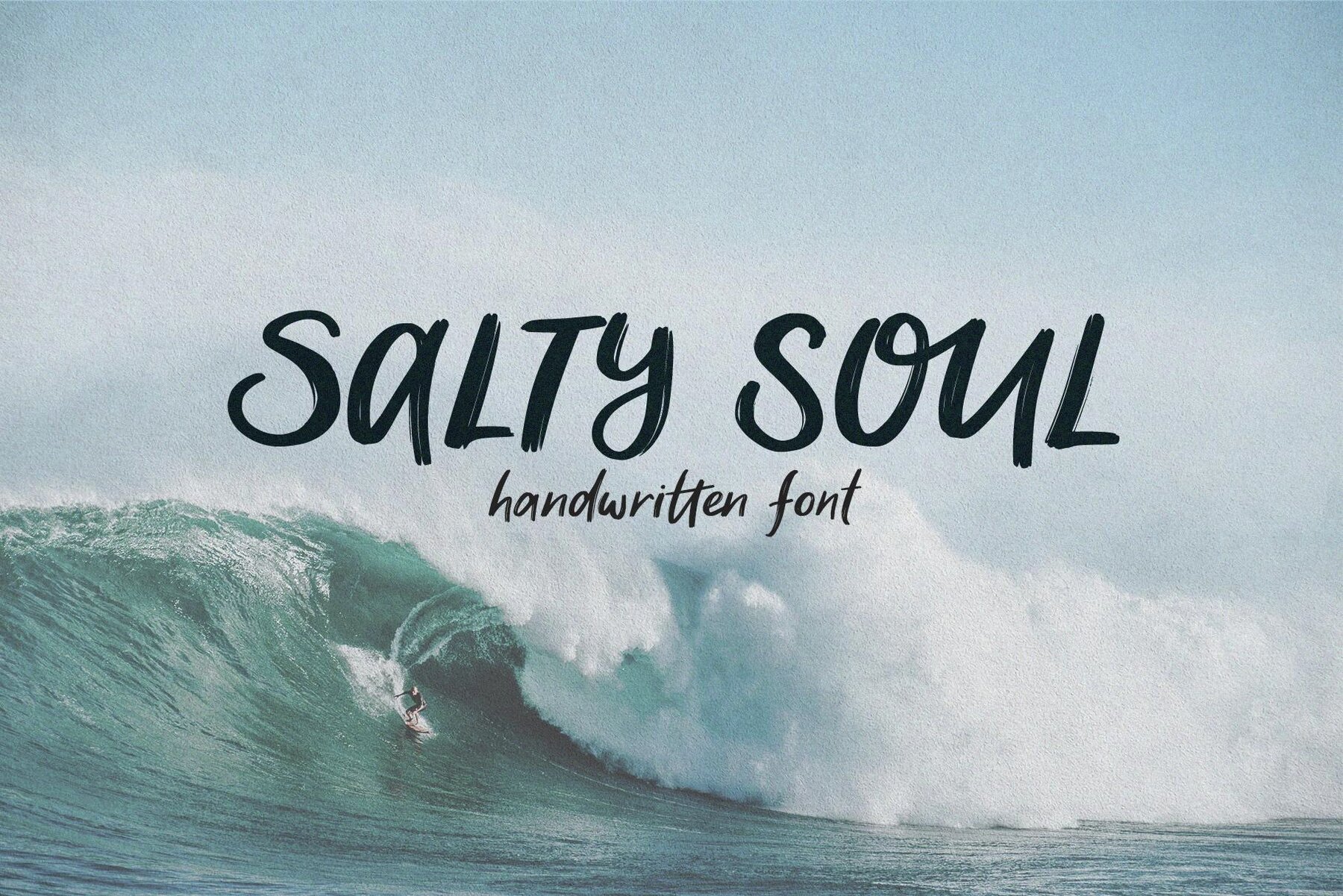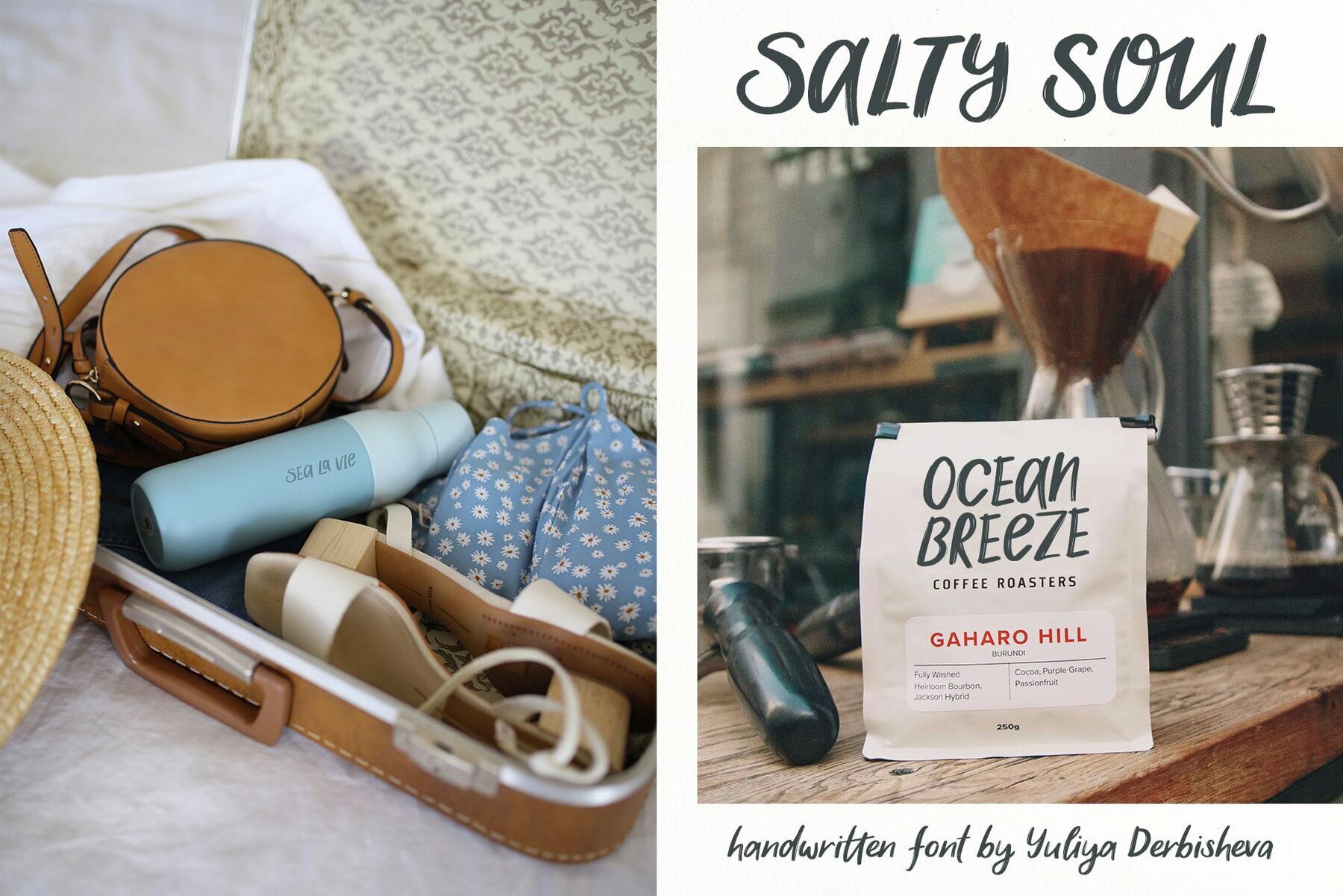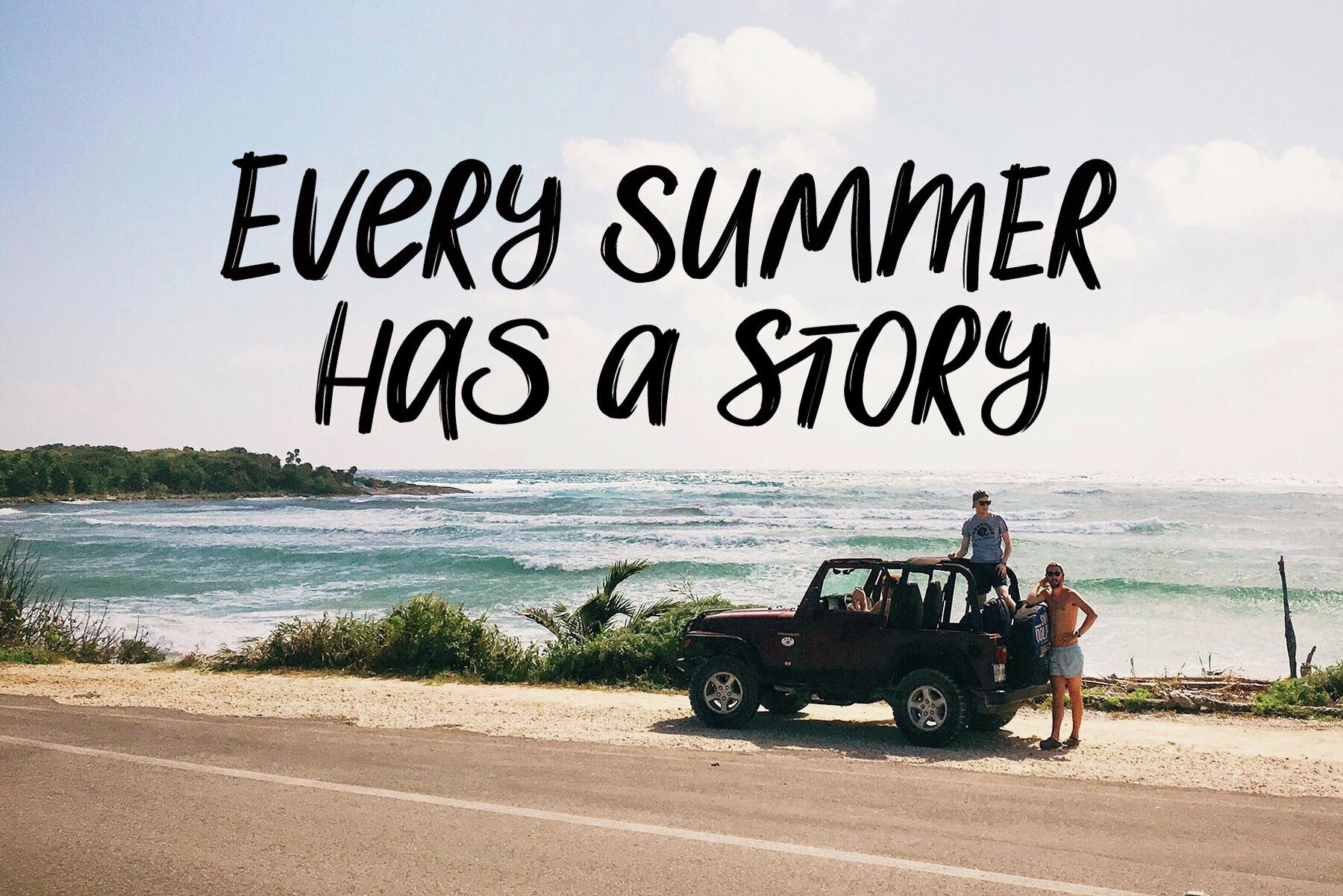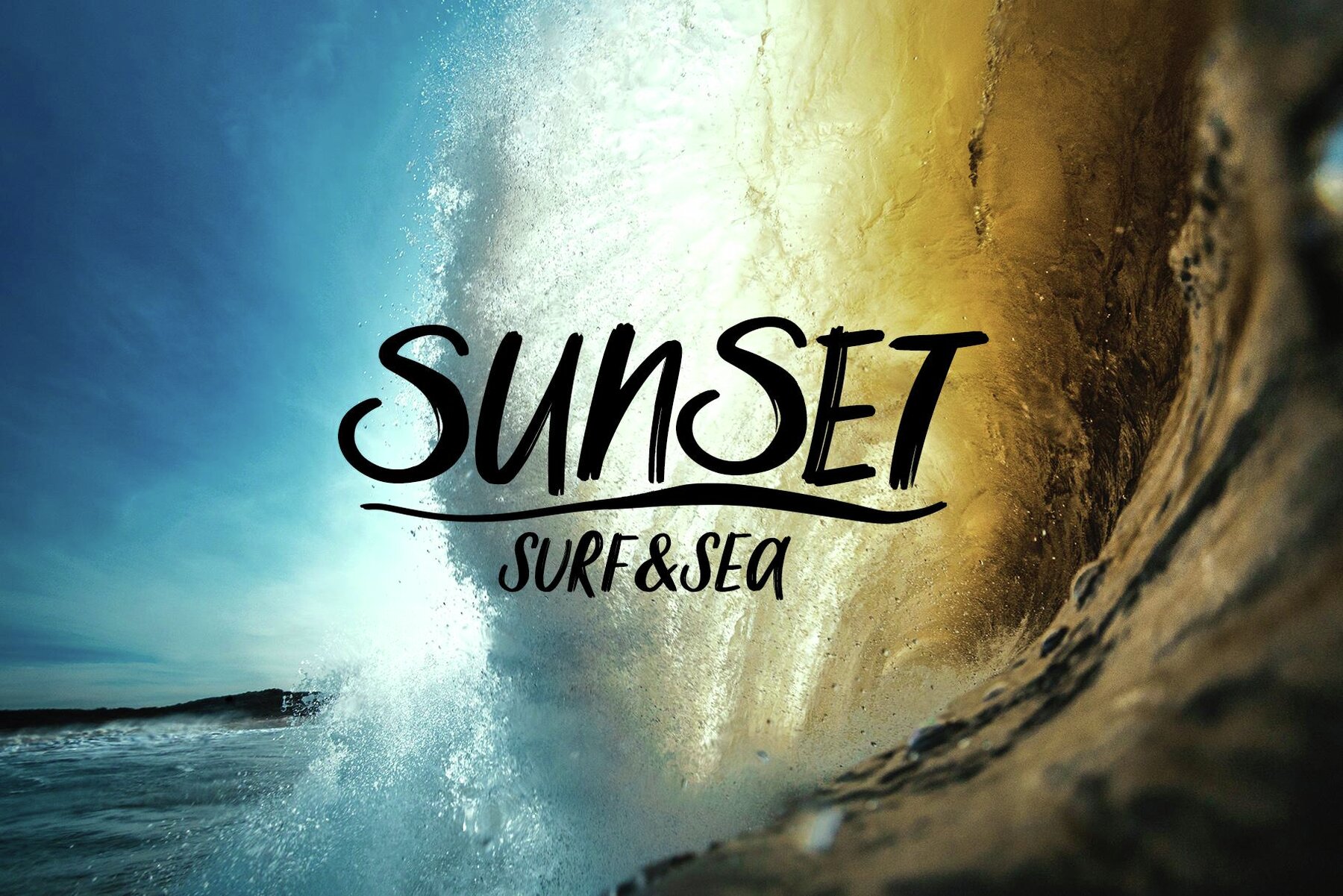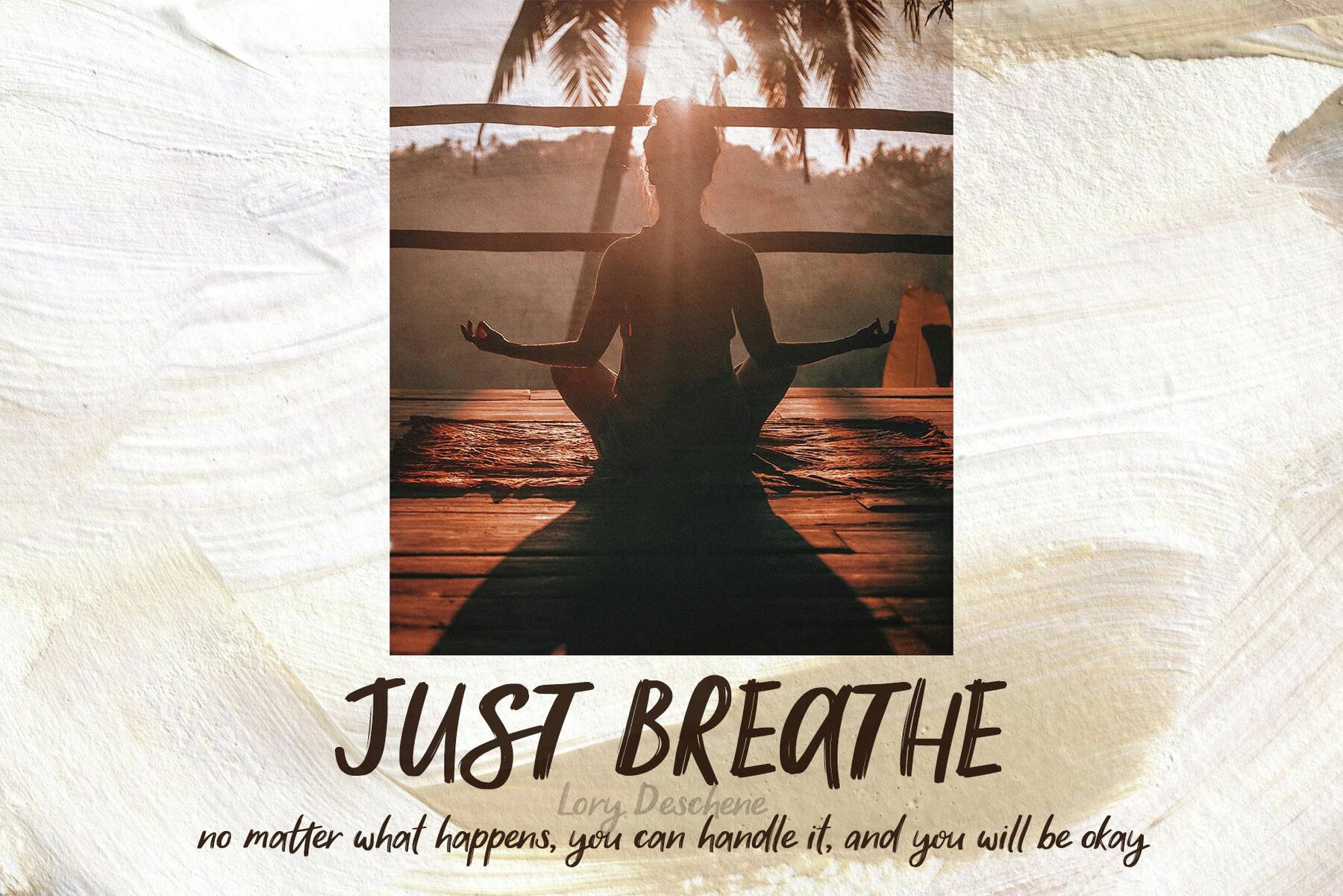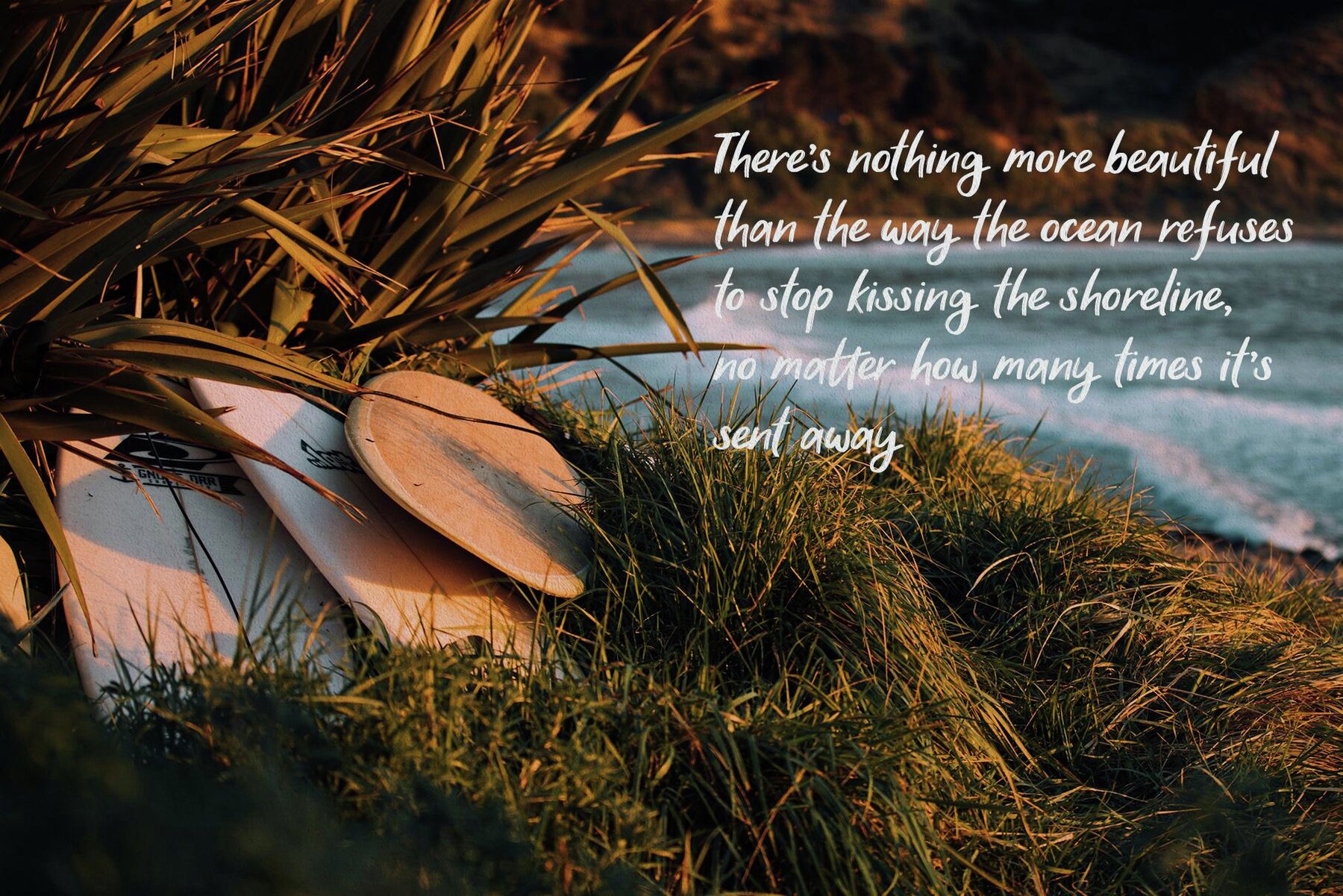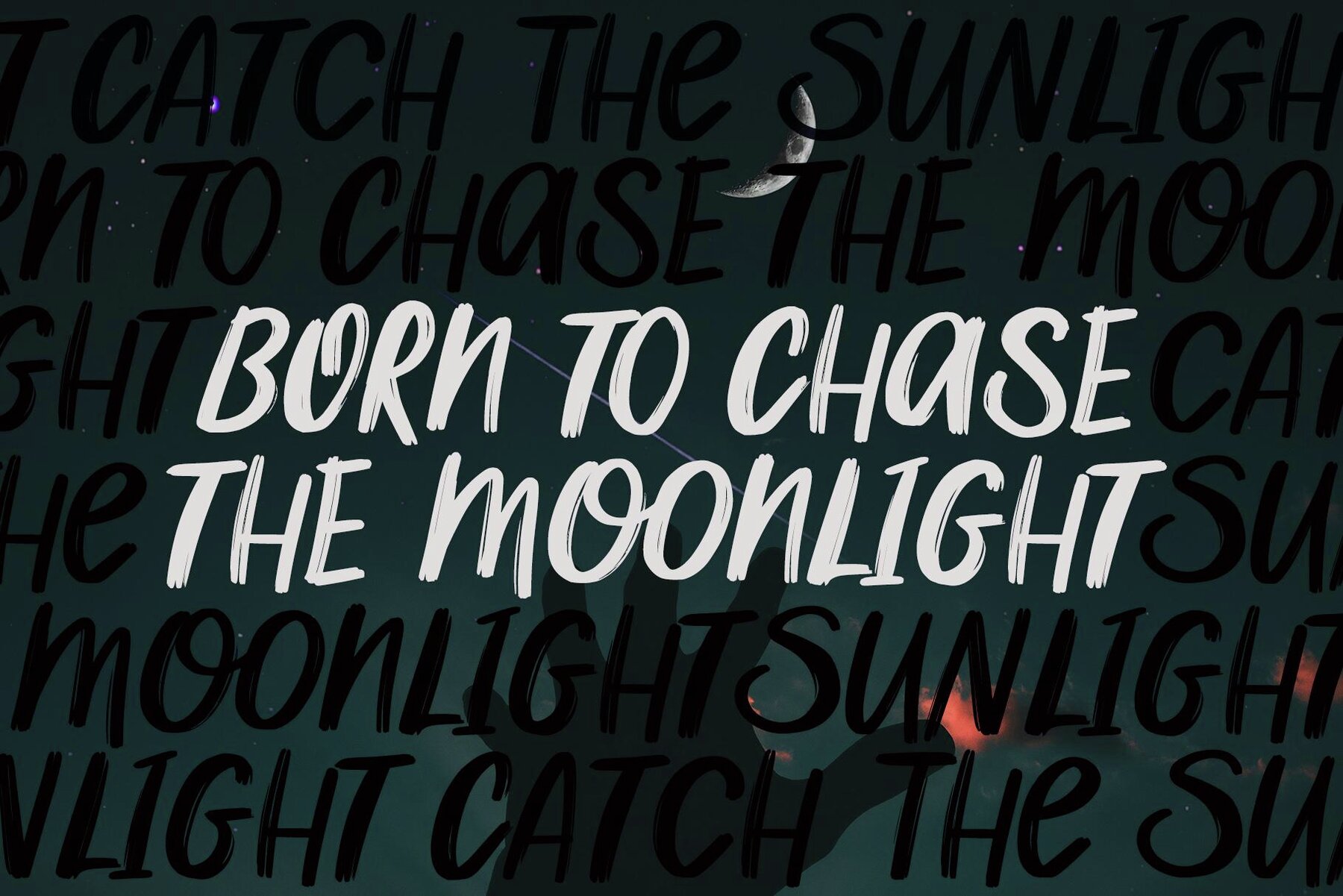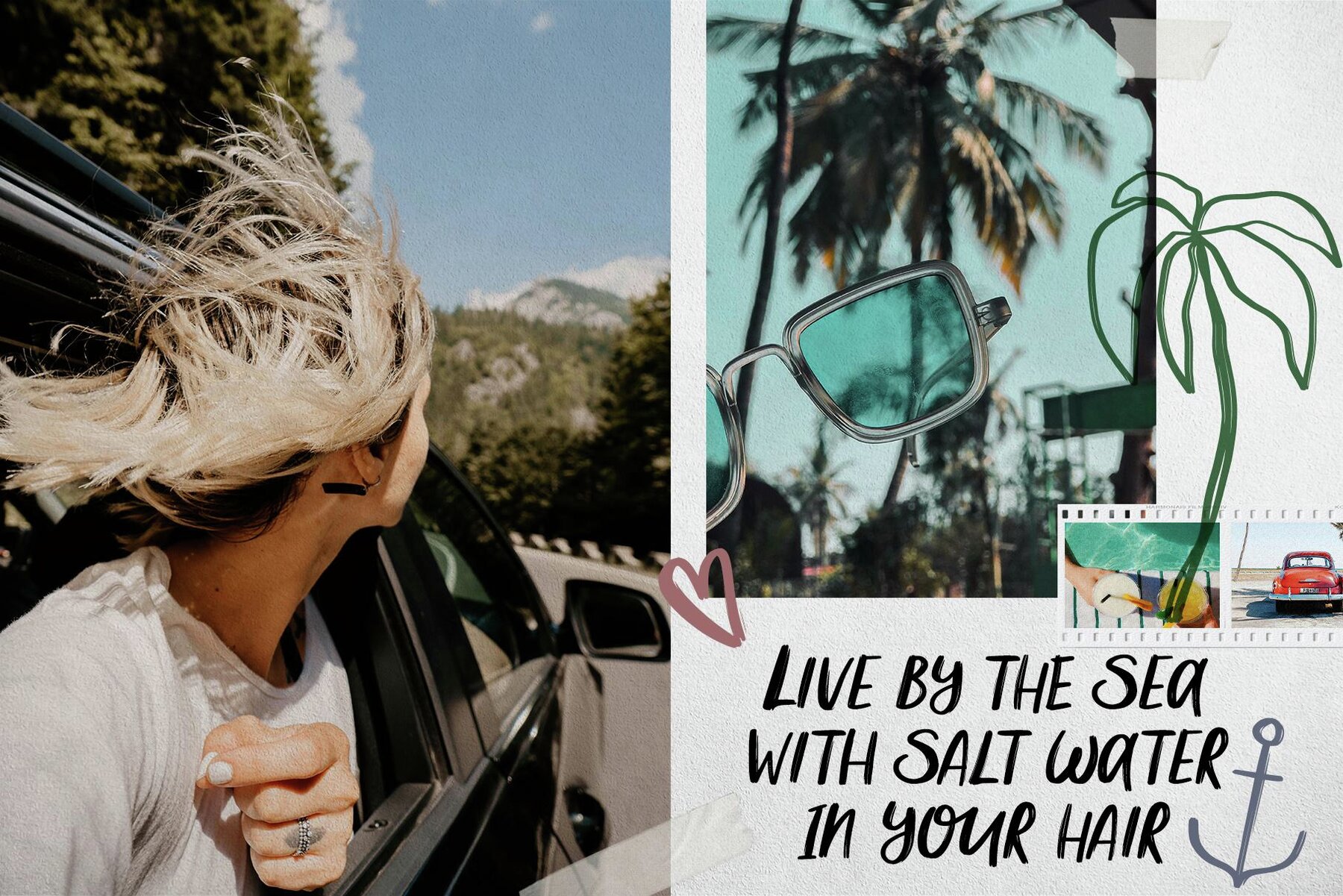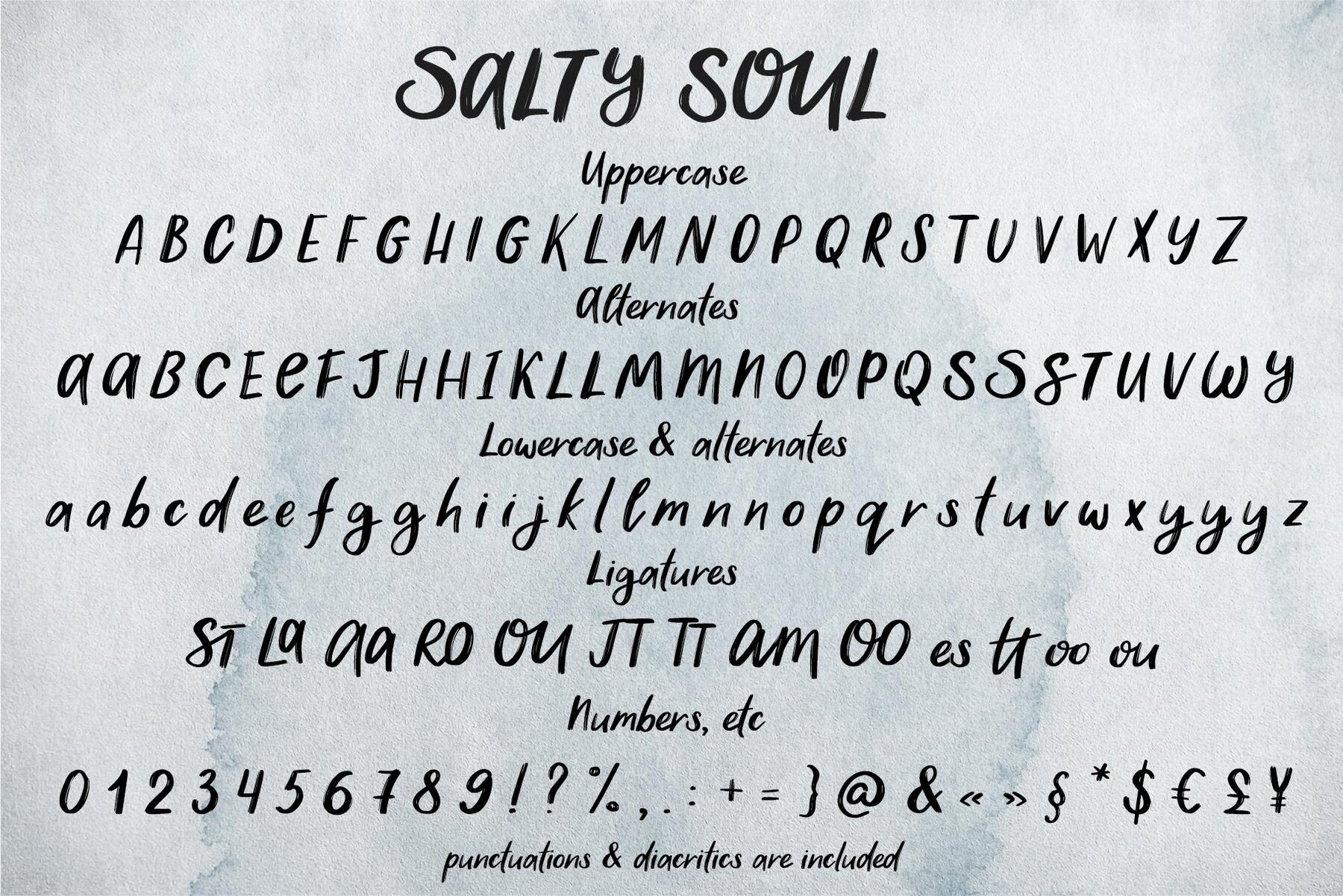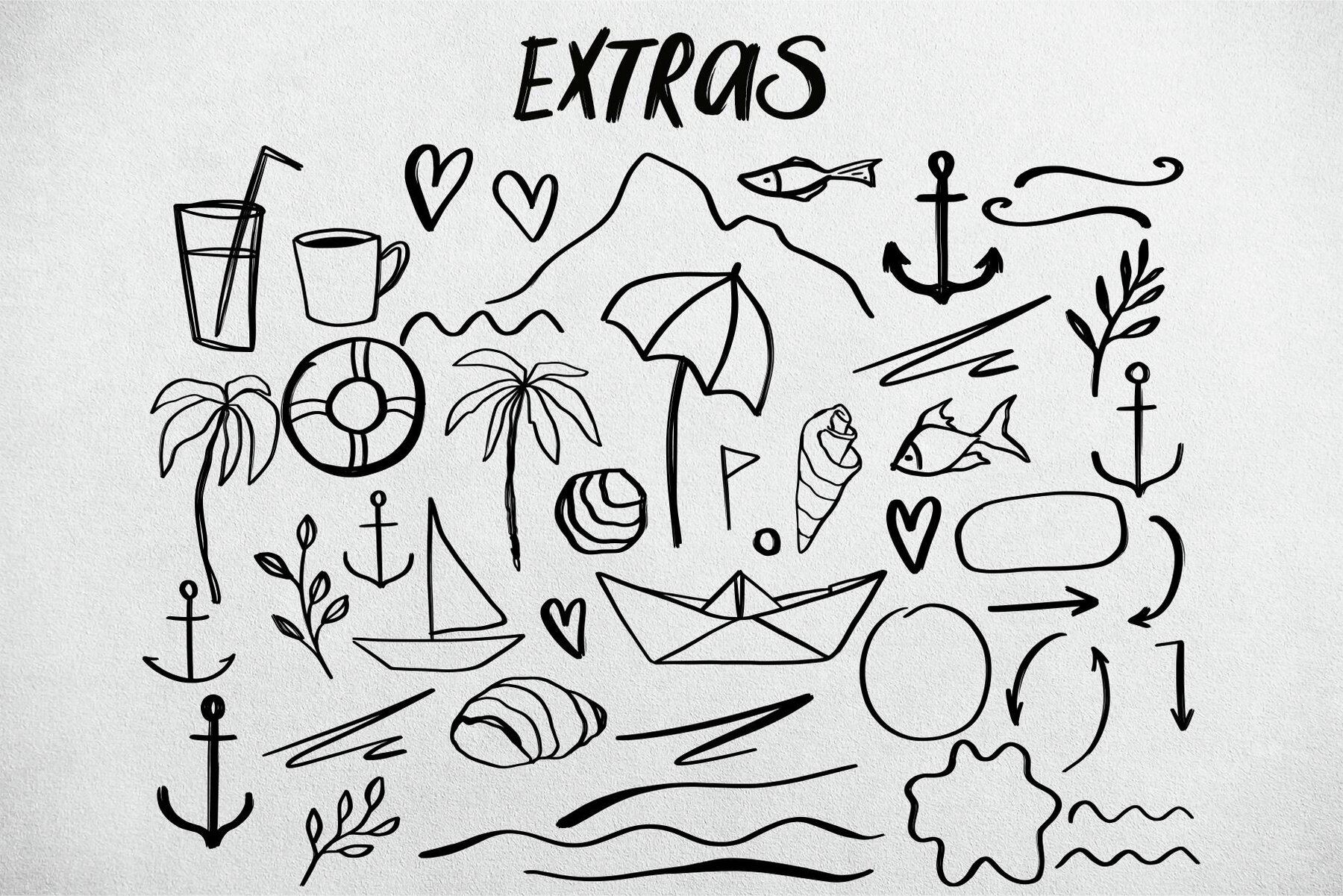
Salty Soul Font
Salty Soul is a captivating handwritten font crafted with a brush, perfect for a wide range of design projects. With stylistic alternates and ligatures, this font excels in logo design and packaging, bringing a unique flair to your creative endeavors. Enhance your branding with over 45 summer-themed illustrations, perfectly suited for seasonal and summer projects. With extensive language support, Salty Soul caters to an international audience, accommodating languages such as English, French, German, Italian, Spanish, Portuguese, Danish, Norwegian, Swedish, Finnish, Estonian, and Turkish. Please note that text and mockups are not part of the package.Salty Soul: Handwritten Brush Font for Diverse Themes